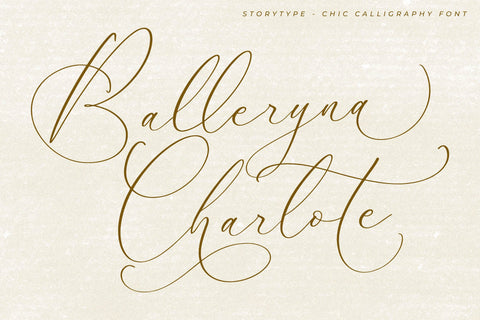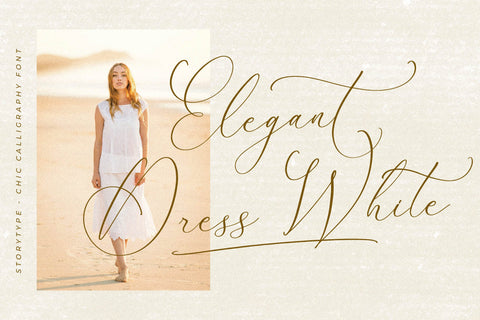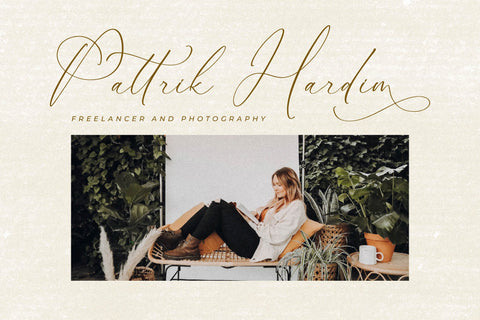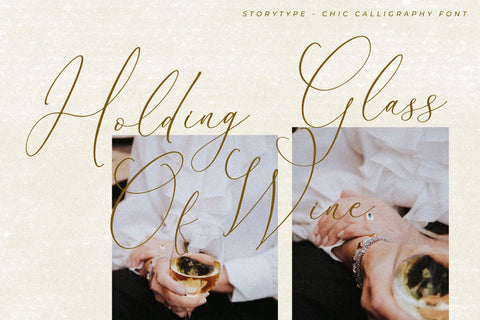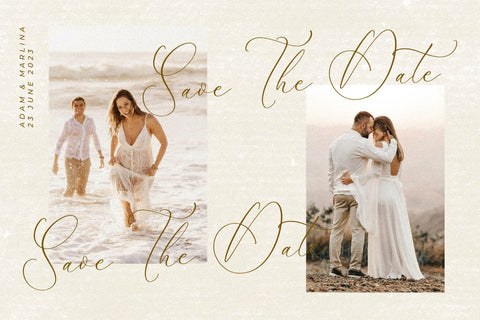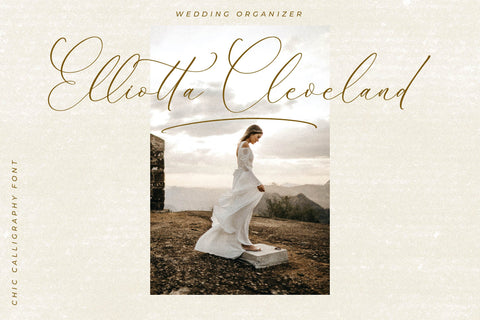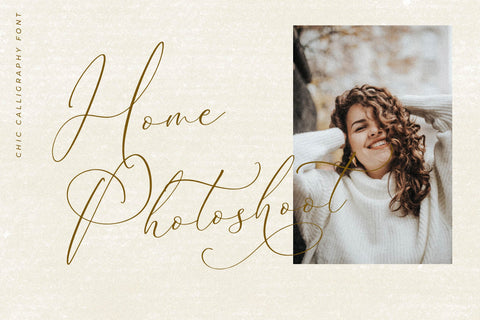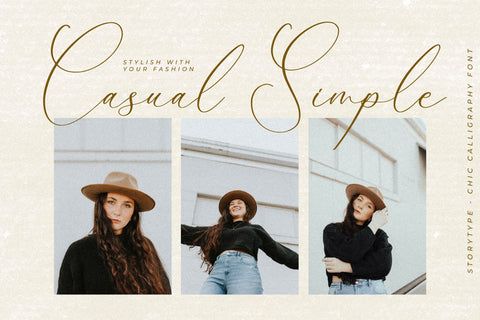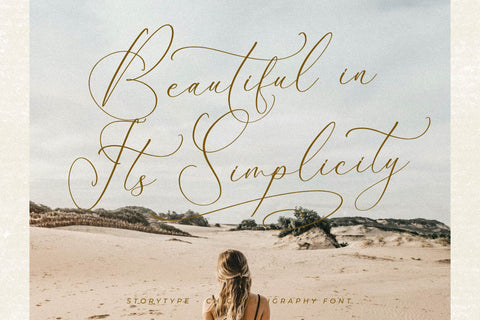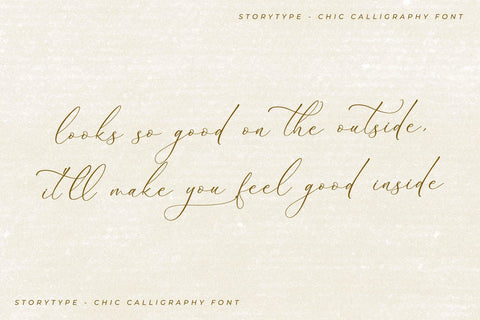
Balleryna Charlote - Chic Calligraphy Font
Proudly present Balleryna Charlote - Chic Calligraphy Font , created by Storytype,
A luxury script that has own unique style & modern look.